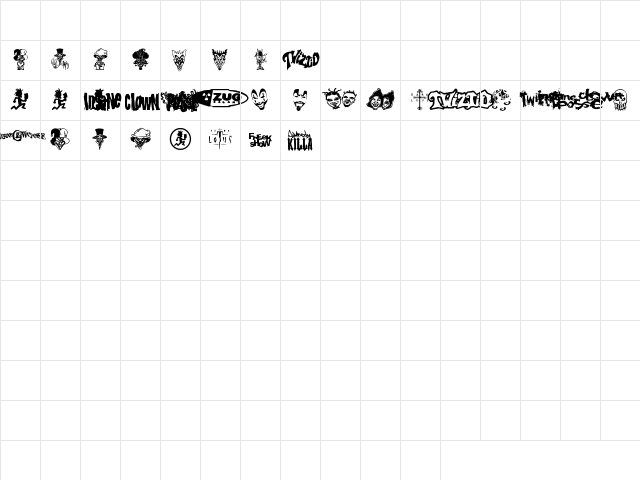
Psychopathic Font V2.0 Regular
Foundry: Faygoluvers.net and RealJuggalos.com
Designer: Deadbody Man
Design Context for Psychopathic Font V2.0
Psychopathic Font V2.0 is a composed and adaptable typeface that performs quietly and consistently across a wide range of design contexts.